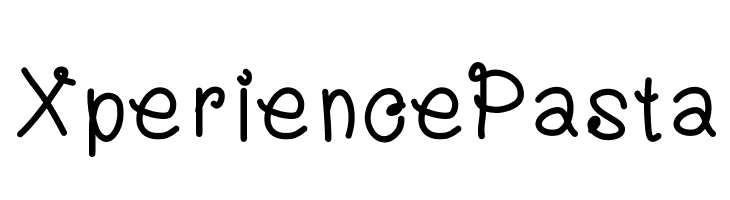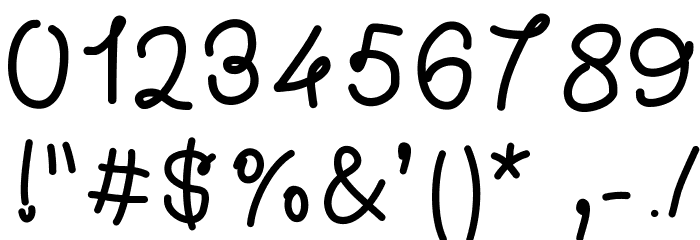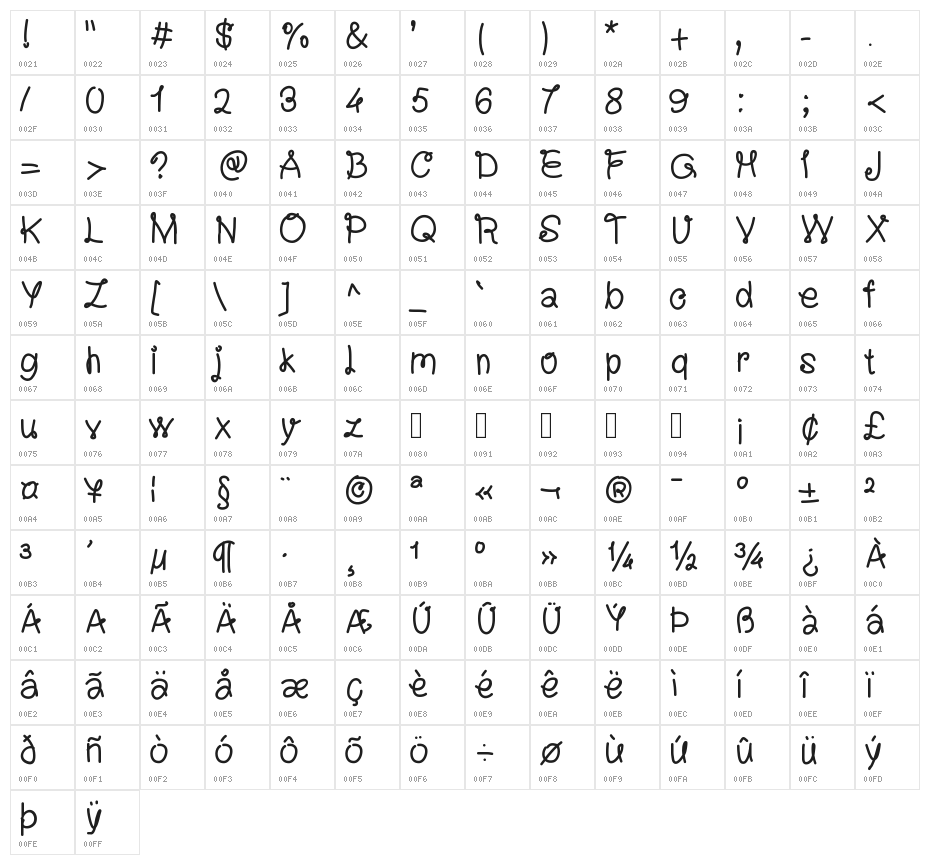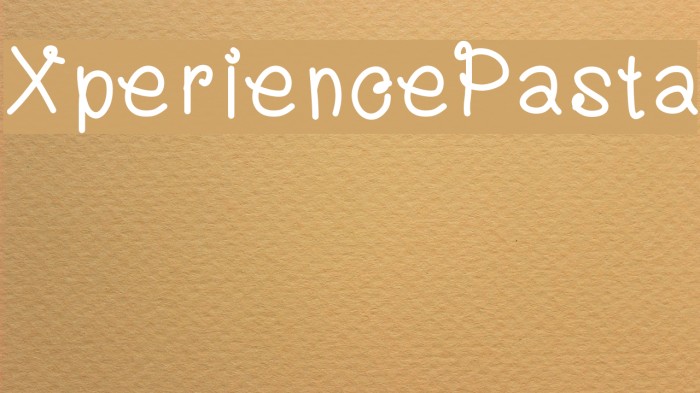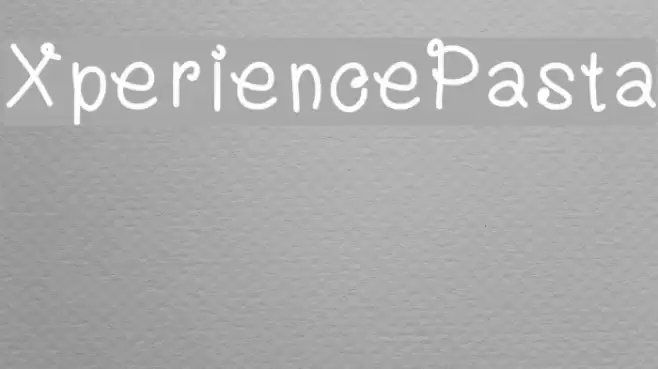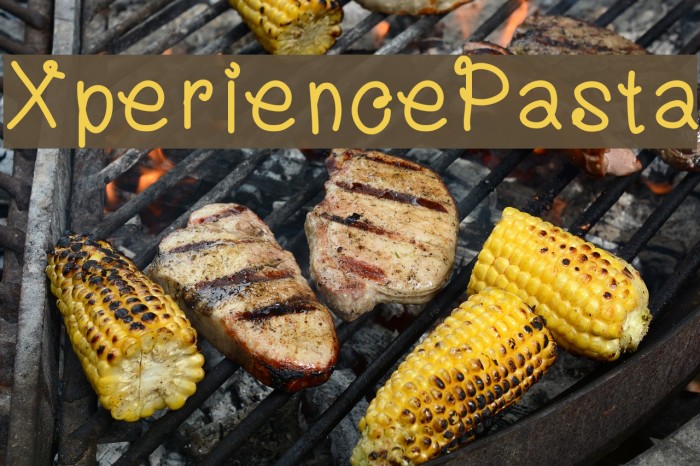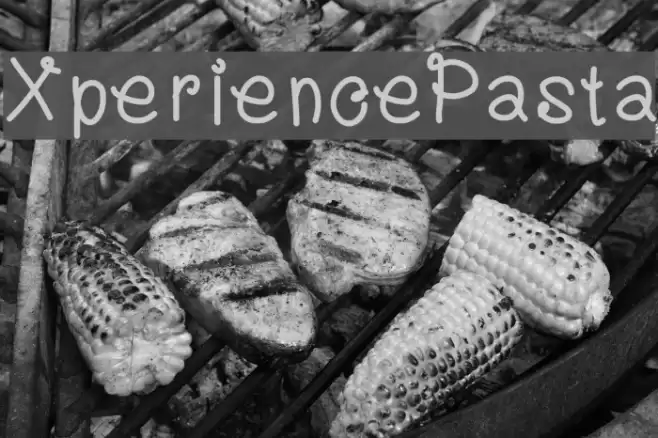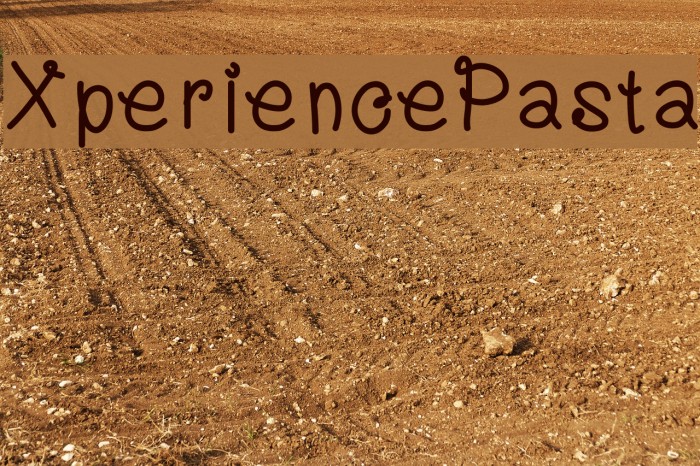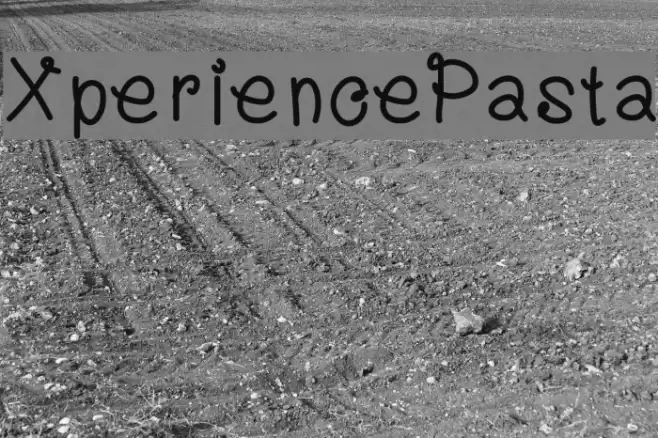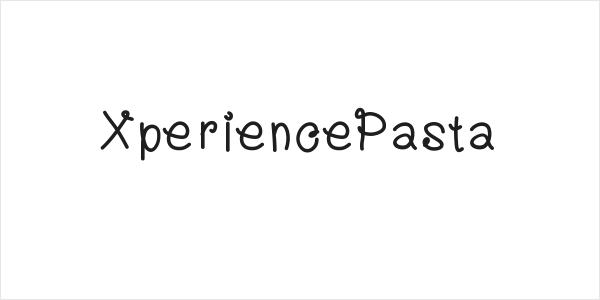
XperiencePasta Font
XperiencePasta Description
This playful and whimsical font features a handwritten style with rounded, bubbly characters. The letters have a casual, friendly appearance, with a slight tilt that adds to their charm. The strokes are consistent in thickness, giving the font a uniform look, while the rounded terminals and loops create a sense of movement and energy. The font includes both uppercase and lowercase letters, numerals, and a variety of special characters, making it versatile for different uses. Its unique style is reminiscent of doodles or children's handwriting, making it perfect for projects that require a fun and informal touch.
| Use Case | Logos, Invitations, Children's Books |
| Proposed Projects | Ideal for children's books, greeting cards, playful branding, and informal invitations. |